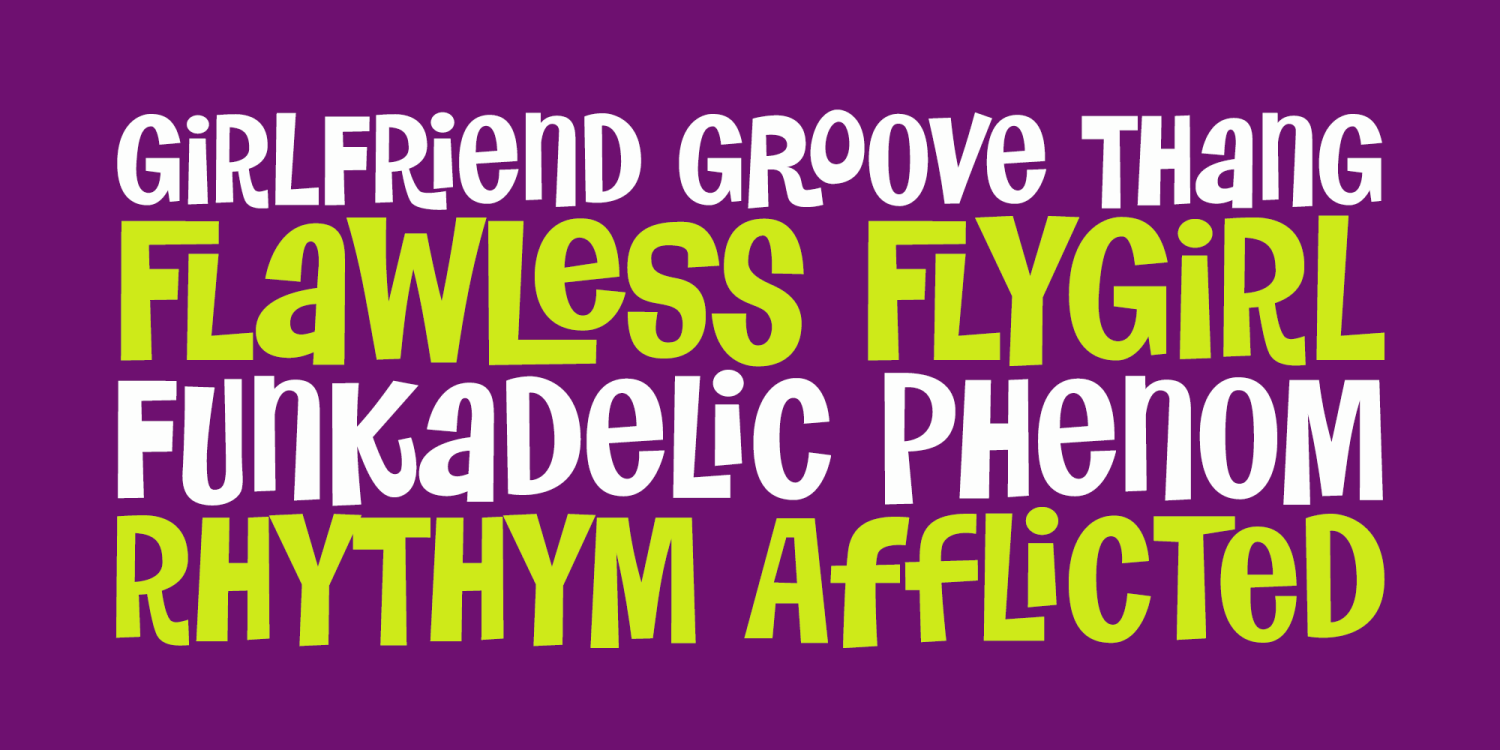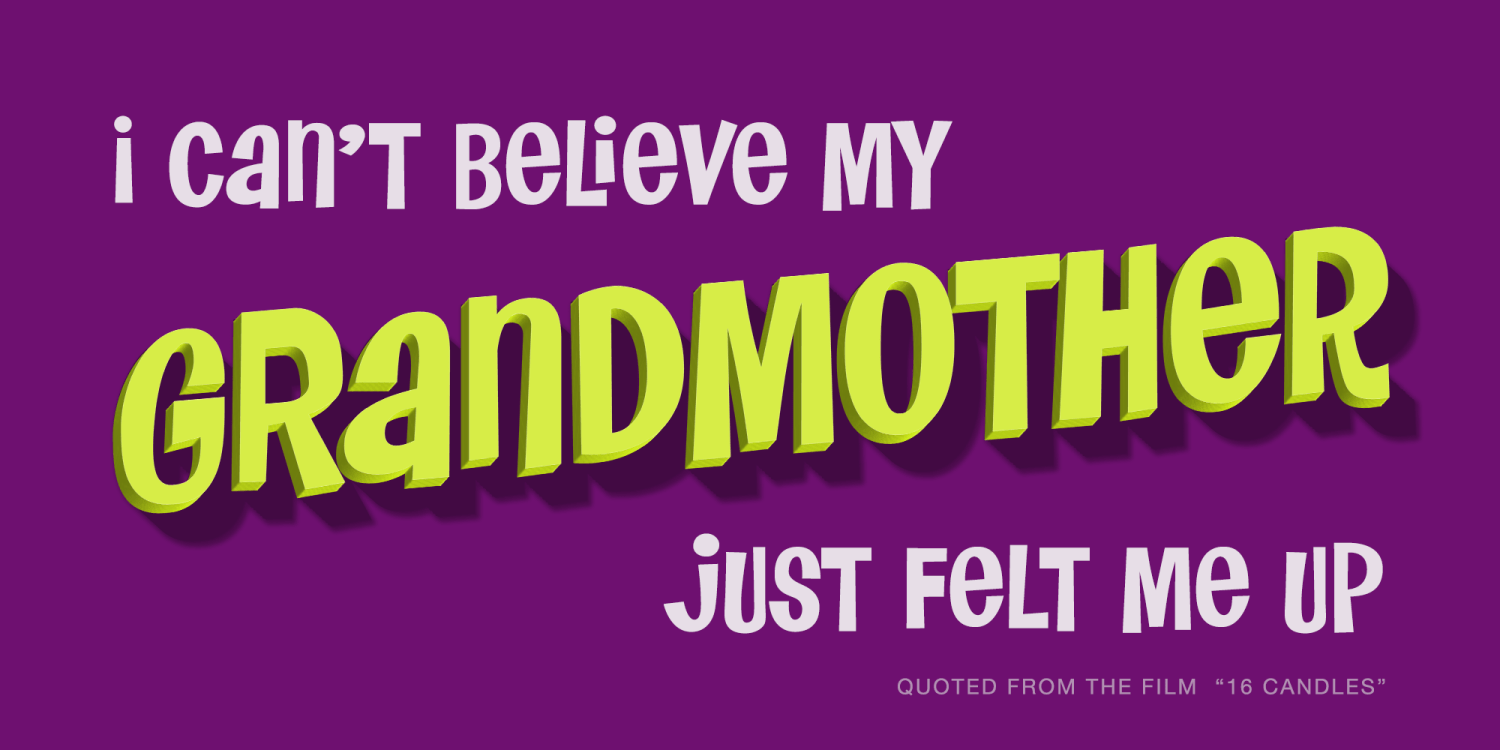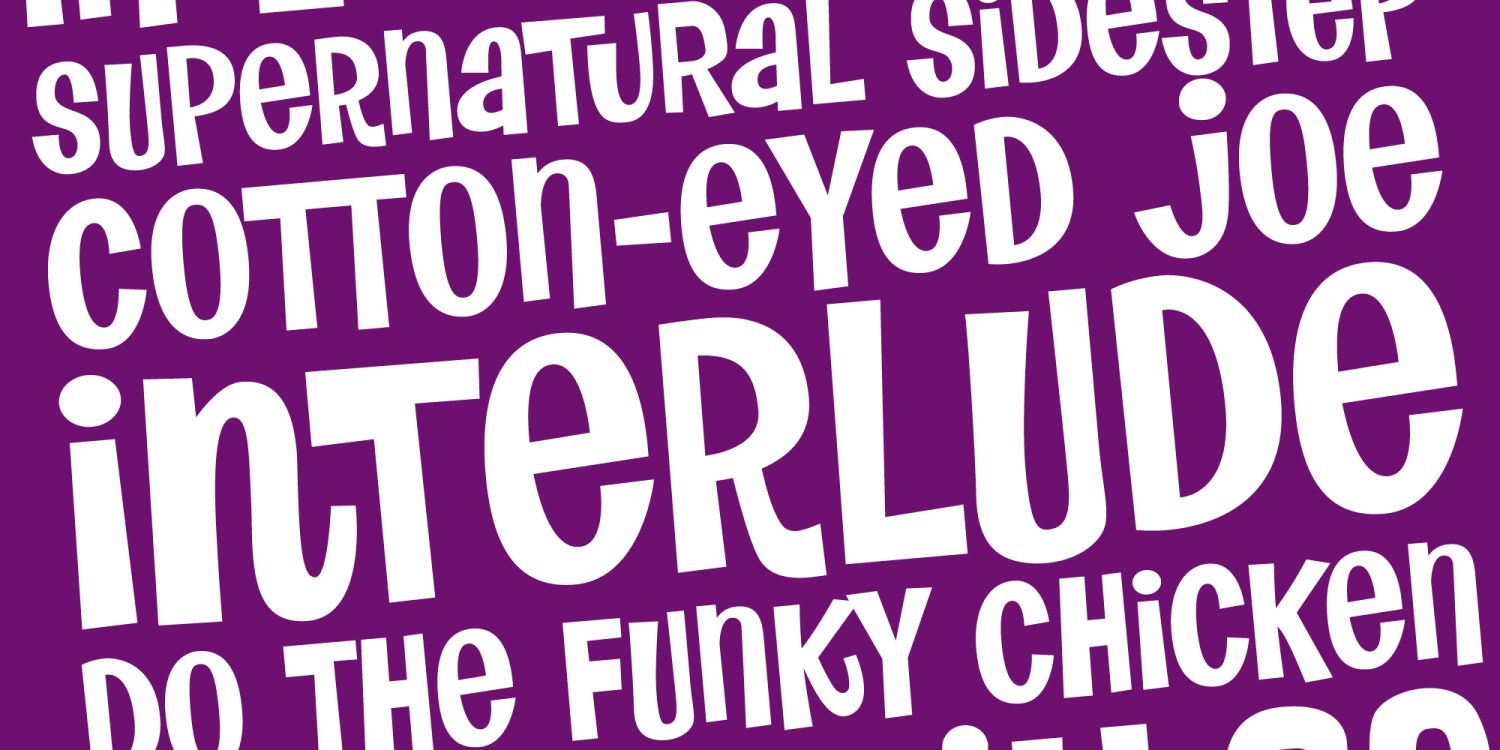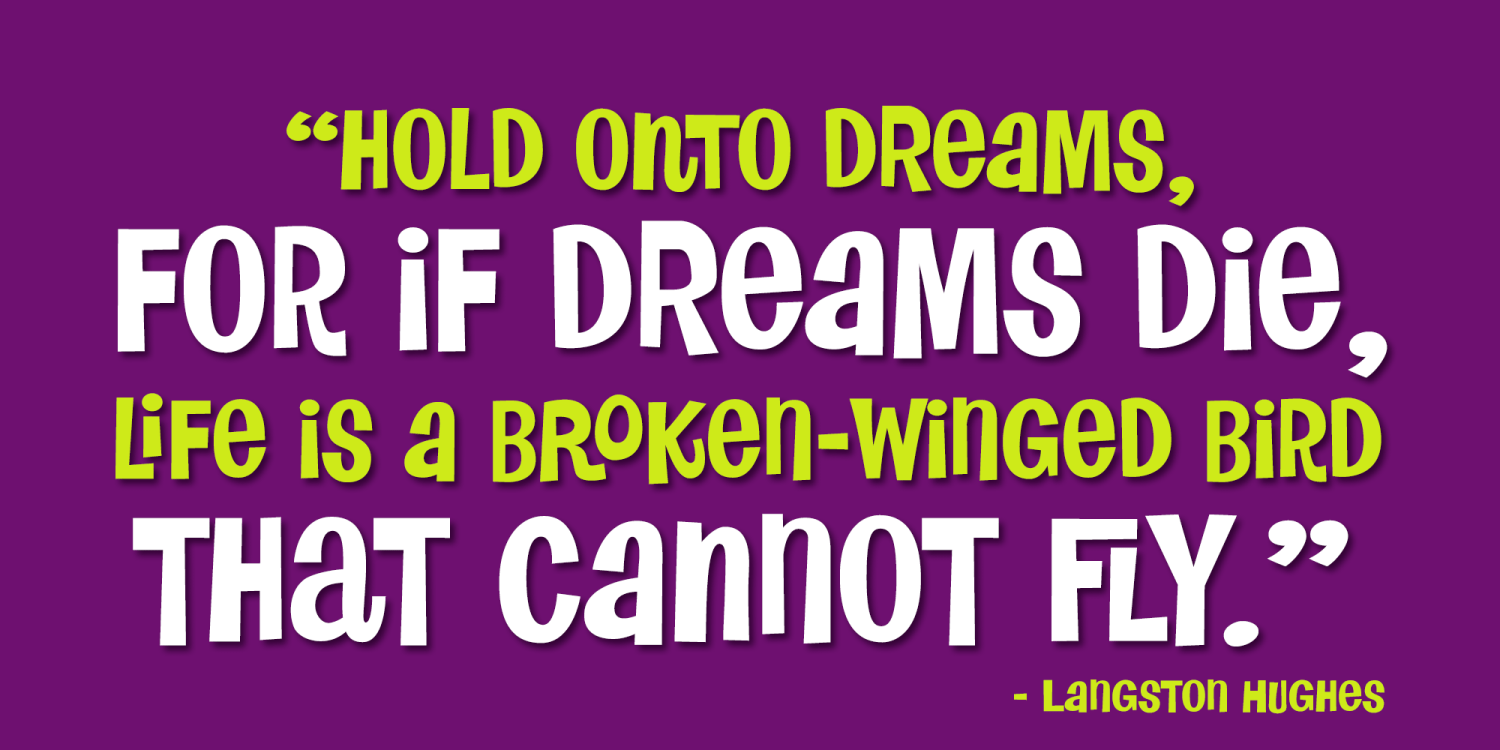
Flawless Flygirl
Font Family by Pink Broccoli
Flawless Flygirl is a quirky sans-serif font inspired by the titling sequence from the 1964 film, "The World of Henry Orient". Fun and full of personality, it is one of those lettering styles that was a joy to flesh out and make into a typeface filled with double letter ligature alternates to keep the typesetting weird and wonderful.
With a pseudo unicase character set, and offbeat letter weighting, Flawless Flygirl is fun to typeset with, with ligature combinations that are pleasant surprises. You'll find this Flawless Flygirl is ready to dance to the beat of your designs.